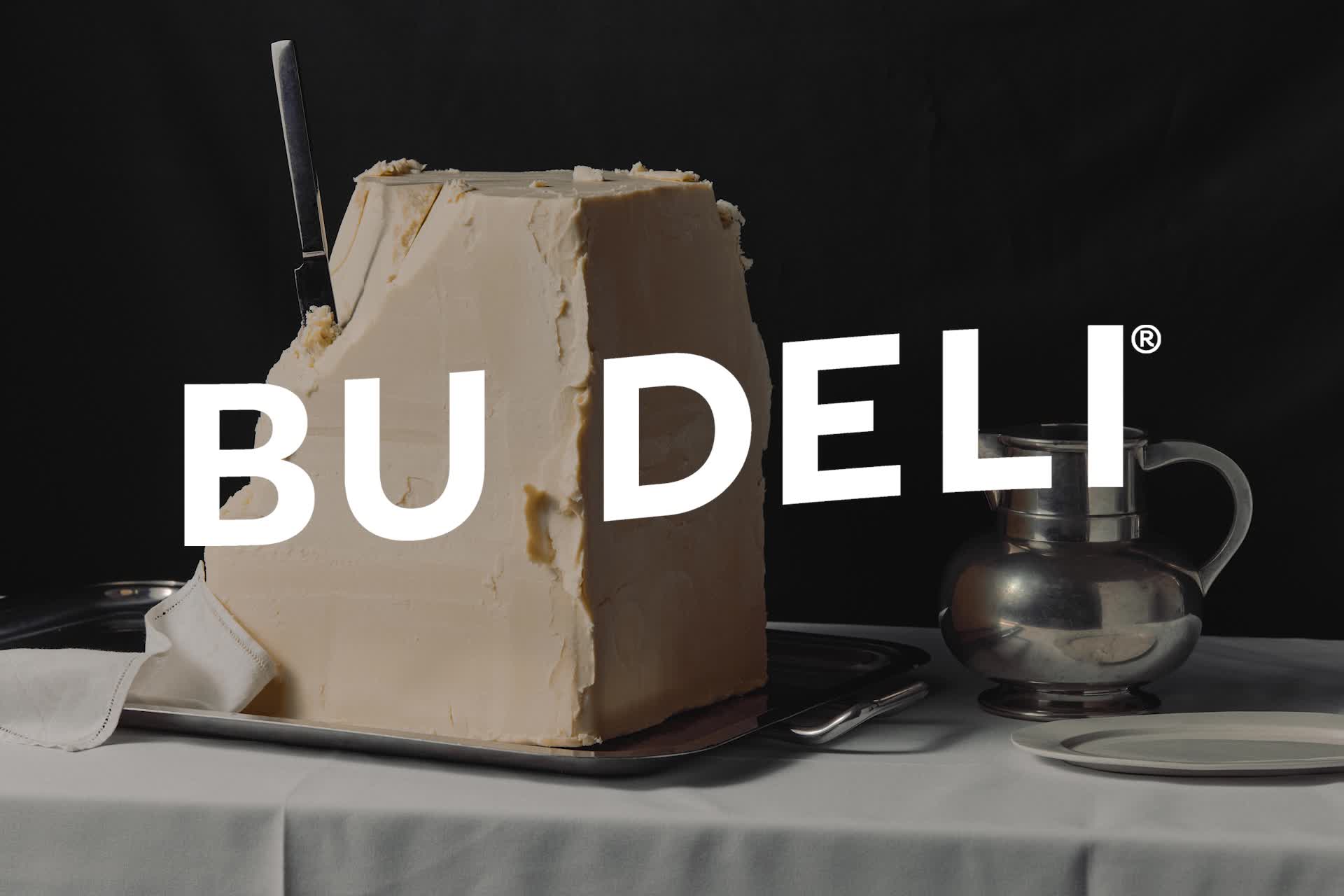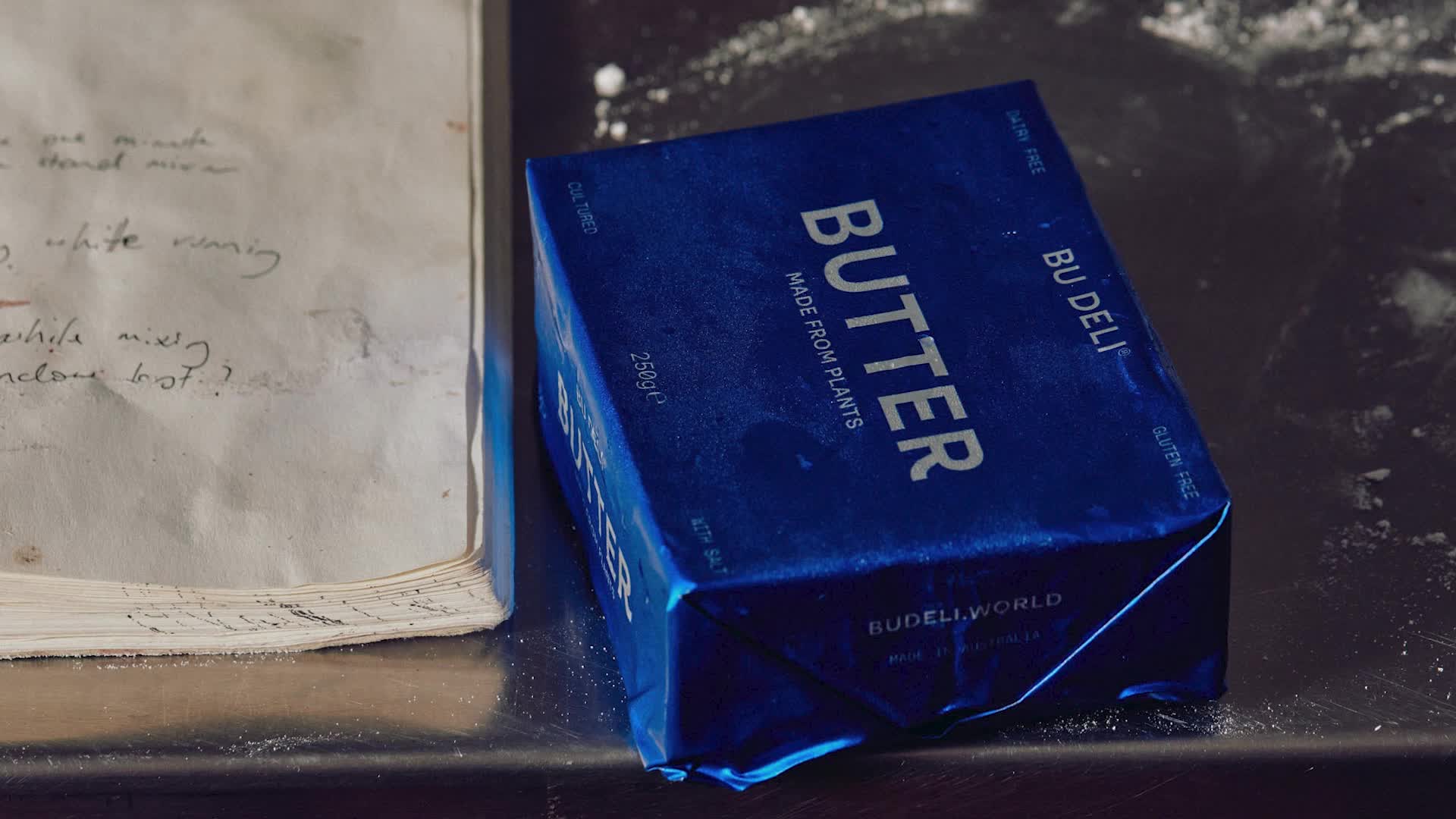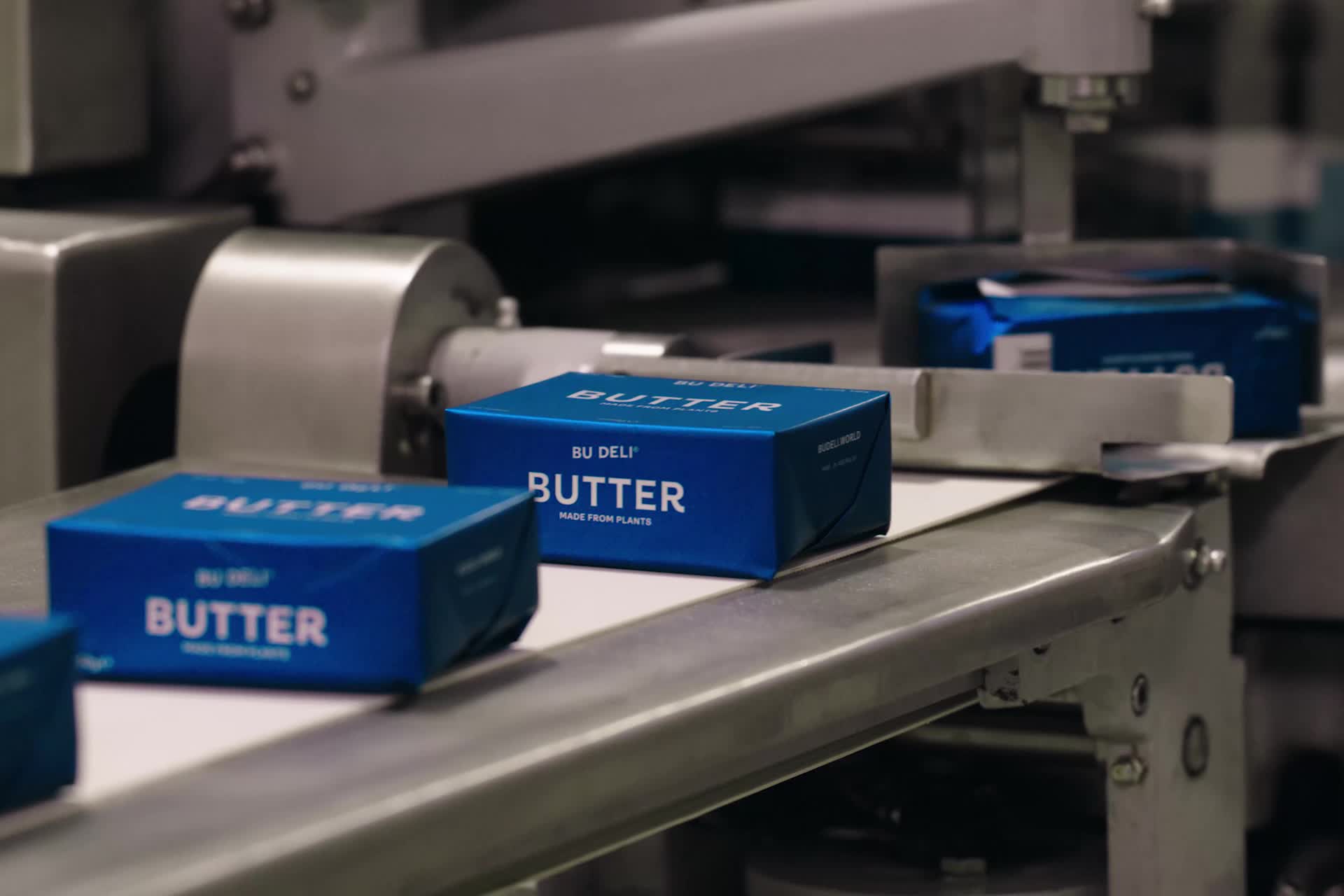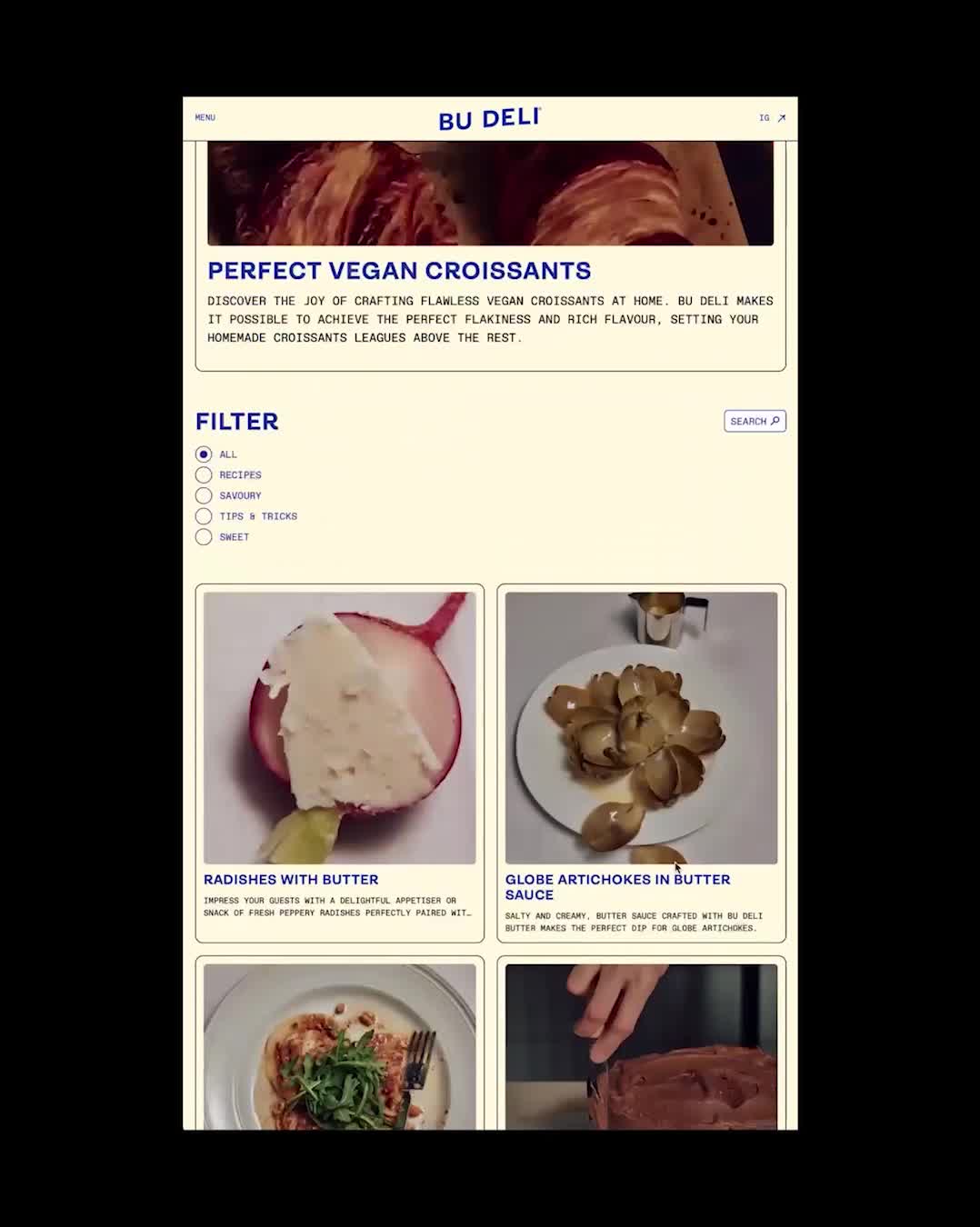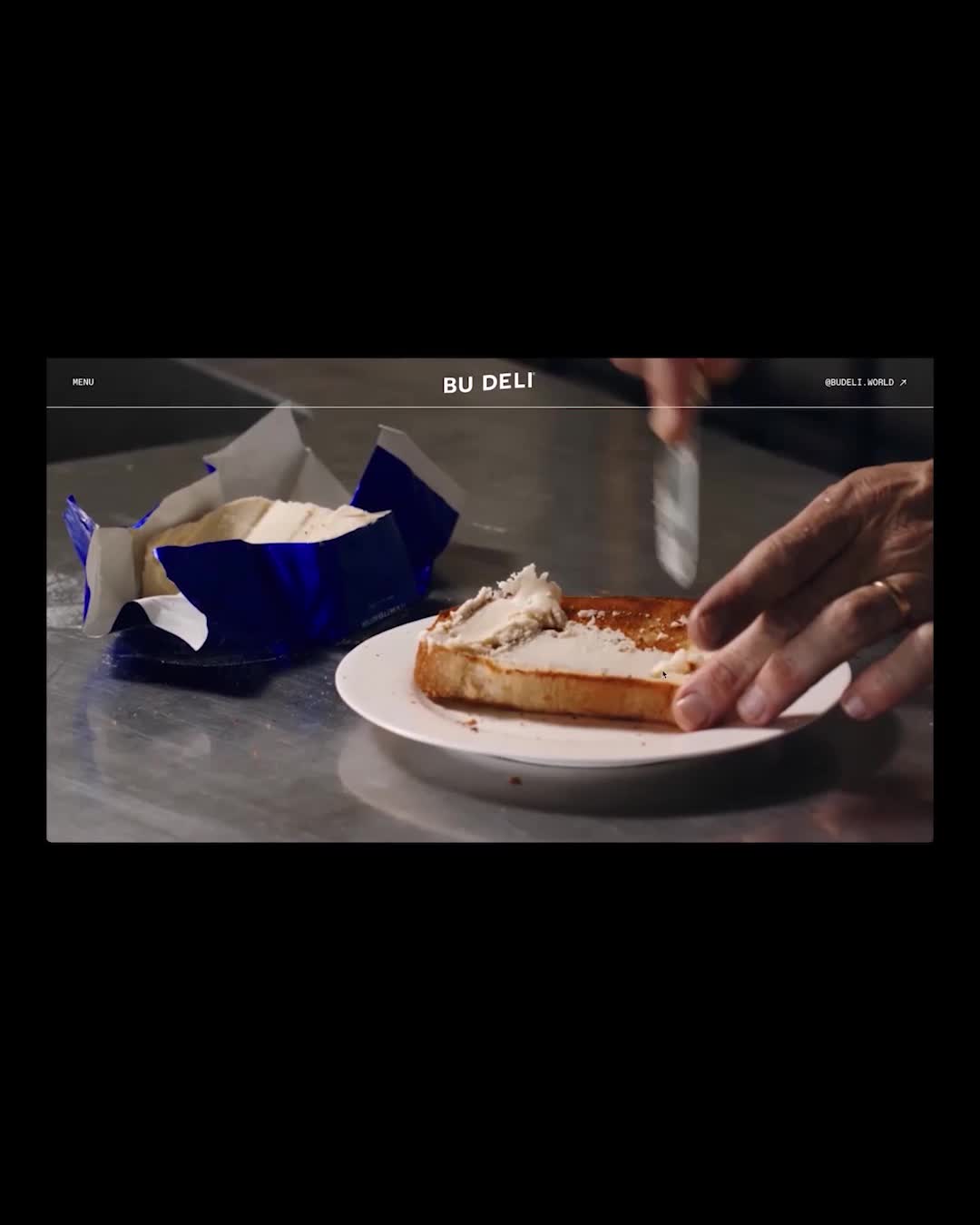
Bu Deli
by Studio Bland
Plant-based deli dodges the usual green/earthy clichés for classic European blue packaging. Ambit brings personality, ABC Favorit Mono keeps it readable. Smart move making fake meat look like real deli instead of health food.